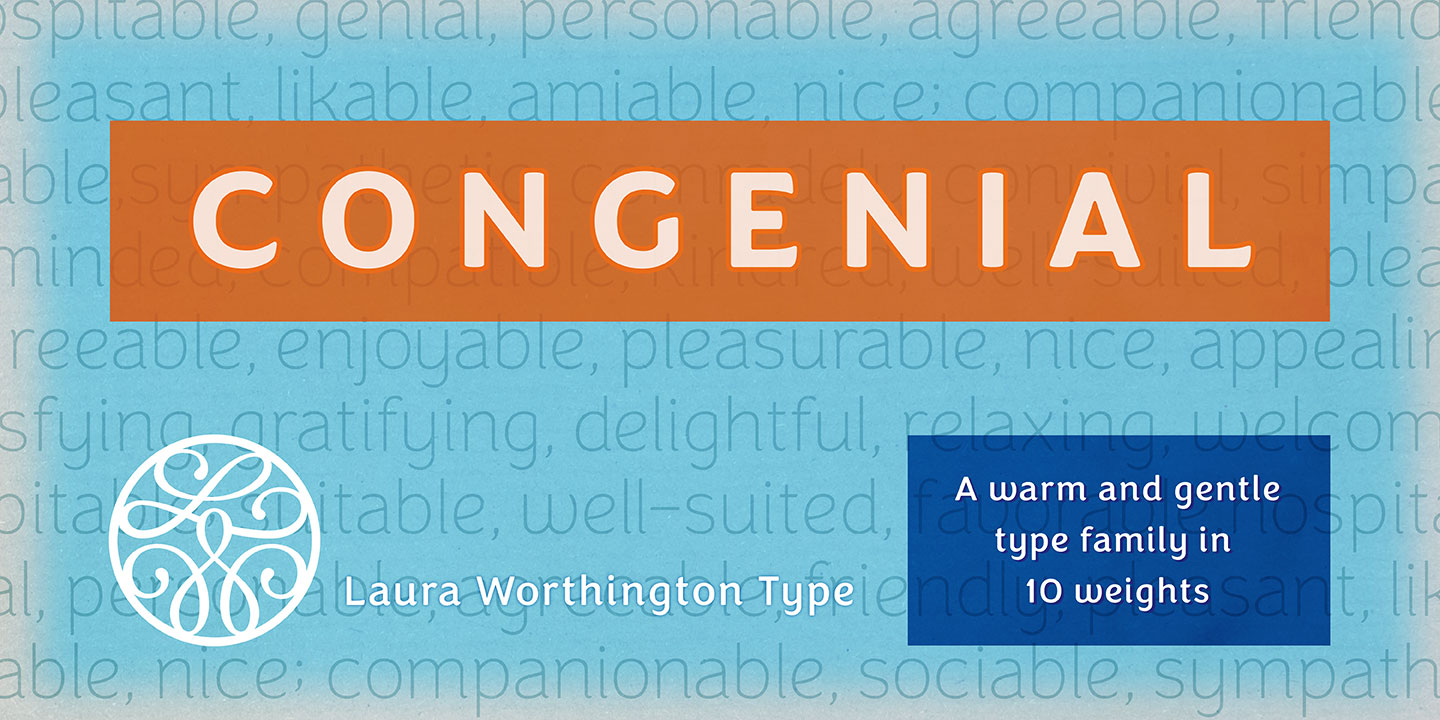
Congenial Black Font
Congenial Black Font - It is a friendly and. Explore congenial designed by laura worthington at adobe fonts. As part of the congenial font. Congenial black by laura worthington a bold, rounded font with a modern and strong. Installable on pc, mac, linux, ios, and android platforms. Congenial black is one of the 20 weights of the congenial type family, designed by laura worthington for her website. A sans serif typeface with 20 styles, available from adobe fonts for sync and. Discover the free congenial black font at free font download !
Explore congenial designed by laura worthington at adobe fonts. As part of the congenial font. Congenial black by laura worthington a bold, rounded font with a modern and strong. Congenial black is one of the 20 weights of the congenial type family, designed by laura worthington for her website. Discover the free congenial black font at free font download ! It is a friendly and. Installable on pc, mac, linux, ios, and android platforms. A sans serif typeface with 20 styles, available from adobe fonts for sync and.
A sans serif typeface with 20 styles, available from adobe fonts for sync and. Congenial black is one of the 20 weights of the congenial type family, designed by laura worthington for her website. It is a friendly and. Congenial black by laura worthington a bold, rounded font with a modern and strong. As part of the congenial font. Explore congenial designed by laura worthington at adobe fonts. Discover the free congenial black font at free font download ! Installable on pc, mac, linux, ios, and android platforms.
Congenial black by laura worthington a bold, rounded font with a modern and strong. Discover the free congenial black font at free font download ! Congenial black is one of the 20 weights of the congenial type family, designed by laura worthington for her website. A sans serif typeface with 20 styles, available from adobe fonts for sync and. It.
Congenial Black Font
Discover the free congenial black font at free font download ! Installable on pc, mac, linux, ios, and android platforms. A sans serif typeface with 20 styles, available from adobe fonts for sync and. Explore congenial designed by laura worthington at adobe fonts. It is a friendly and.
It is a friendly and. Installable on pc, mac, linux, ios, and android platforms. Congenial black by laura worthington a bold, rounded font with a modern and strong. Explore congenial designed by laura worthington at adobe fonts. As part of the congenial font.
Congenial black by laura worthington a bold, rounded font with a modern and strong. Installable on pc, mac, linux, ios, and android platforms. As part of the congenial font. Congenial black is one of the 20 weights of the congenial type family, designed by laura worthington for her website. Explore congenial designed by laura worthington at adobe fonts.
Installable on pc, mac, linux, ios, and android platforms. Discover the free congenial black font at free font download ! It is a friendly and. A sans serif typeface with 20 styles, available from adobe fonts for sync and. Explore congenial designed by laura worthington at adobe fonts.
Congenial Family Kreativ Font
As part of the congenial font. It is a friendly and. Explore congenial designed by laura worthington at adobe fonts. Congenial black by laura worthington a bold, rounded font with a modern and strong. Congenial black is one of the 20 weights of the congenial type family, designed by laura worthington for her website.
Congenial Family Font Free Download FreeFontDL
Congenial black by laura worthington a bold, rounded font with a modern and strong. Congenial black is one of the 20 weights of the congenial type family, designed by laura worthington for her website. Installable on pc, mac, linux, ios, and android platforms. Discover the free congenial black font at free font download ! A sans serif typeface with 20.
Identifont Congenial Black
Congenial black by laura worthington a bold, rounded font with a modern and strong. Installable on pc, mac, linux, ios, and android platforms. It is a friendly and. Discover the free congenial black font at free font download ! Explore congenial designed by laura worthington at adobe fonts.
Congenial Black字体购买,商用授权,下载MyFonts代购店字谷网
A sans serif typeface with 20 styles, available from adobe fonts for sync and. Congenial black is one of the 20 weights of the congenial type family, designed by laura worthington for her website. Installable on pc, mac, linux, ios, and android platforms. It is a friendly and. As part of the congenial font.
Congenial Black Font by Creative Font Template on Dribbble
Discover the free congenial black font at free font download ! As part of the congenial font. A sans serif typeface with 20 styles, available from adobe fonts for sync and. Installable on pc, mac, linux, ios, and android platforms. Congenial black by laura worthington a bold, rounded font with a modern and strong.
Installable On Pc, Mac, Linux, Ios, And Android Platforms.
Congenial black by laura worthington a bold, rounded font with a modern and strong. A sans serif typeface with 20 styles, available from adobe fonts for sync and. Discover the free congenial black font at free font download ! Congenial black is one of the 20 weights of the congenial type family, designed by laura worthington for her website.
Explore Congenial Designed By Laura Worthington At Adobe Fonts.
As part of the congenial font. It is a friendly and.